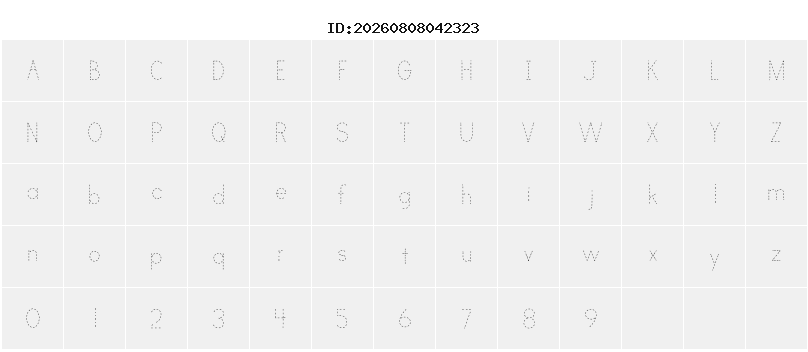
• Font Name: Print Clearly Dashed
• Full Font Name: Print Clearly Dashed
Print Clearly Dashed.ttf is a modern, elegant sans-serif font designed for ultimate readability and visual harmony. Perfect for branding, headlines, web design, and print materials.